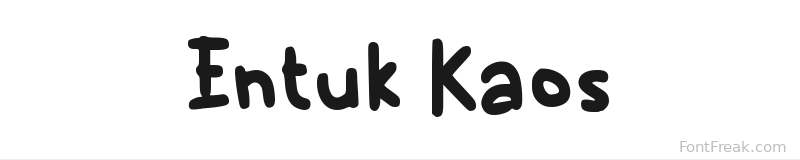
Entuk Kaos
About Entuk Kaos
Entuk Kaos is a distinctive display font designed by Wahyu Eka Prasetya, released as freeware. This playful typeface captures attention with its unique, hand-drawn aesthetic, making it ideal for projects that require a touch of personality and flair. As a display font, it features bold, irregular strokes that convey a sense of spontaneity and creativity. The characters are characterized by a medium stroke weight and a friendly, rounded appearance, which enhances readability while retaining an informal charm. The spacing is well-balanced, allowing for easy legibility, even in larger sizes.
This font is particularly well-suited for various creative applications. For instance, it shines in wedding invitations where a whimsical touch is desired, adding a personal feel to the occasion. Additionally, Entuk Kaos works wonderfully for movie posters, where it can evoke a sense of fun and excitement, drawing in viewers. Restaurant menus benefit from its playful vibe, enticing diners with a casual yet inviting atmosphere. Furthermore, content creators can utilize this font in social media graphics or blogs to engage their audience with a lively and approachable style.
Graphic designers, small business owners, and content creators will find Entuk Kaos to be an excellent addition to their toolkit. Its unique character and versatility make it a go-to choice for those looking to stand out in a crowded market. The Entuk Kaos font free download offers an opportunity to infuse creativity into various projects at no cost, making it accessible for all. With its distinctive look and numerous applications, Entuk Kaos stands out as a refreshing choice for anyone seeking to elevate their design work with an engaging and dynamic typeface.